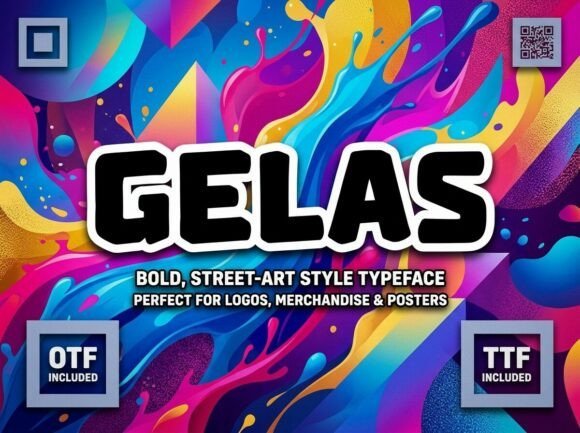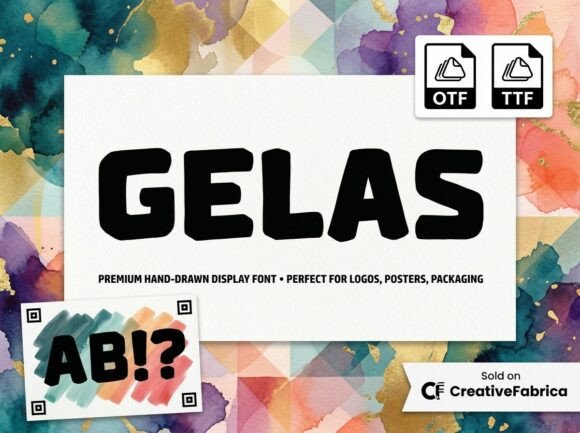
Elevate Your Creative Vision with Gelas Font
Do you remember that moment when a font just clicks, and your entire design comes together? You’re scrolling through font libraries, and suddenly, you stumble upon that one font that screams ‘this is it!’ – the perfect blend of style and sophistication. For designers, finding that elusive font can be a game-changer. Introducing Gelas Font, a decorative display font designed to take center stage in any layout.
With its unique artistic elements and strong character, Gelas Font is perfect for creators who want to stand out from the crowd. From bold headlines to creative branding and packaging, this font delivers a high-end, professional aesthetic without compromising on personality. Whether you’re a seasoned designer or just starting out, Gelas Font is a valuable addition to your toolkit, offering endless possibilities for creative expression.
Gelas Font Key Features
- Unique Characteristics: Gelas Font features a unique, modern design with clean lines and a minimalist aesthetic, making it suitable for a wide range of applications, including logos, headings, and body text.
- Font Weight: Gelas Font comes in multiple weights, including Light, Regular, Bold, and Extra Bold, allowing designers to choose the perfect weight to match their design needs.
Gelas Font Review
At first glance, Gelas Font seems like a promising addition to any designer’s toolkit. ✨ Its elegant, handwritten style is perfect for creating a sense of warmth and approachability in any project.
- Unique and stylish: Gelas Font offers a fresh take on the traditional handwritten font.
- Legibility: The font is surprisingly clear and easy to read, even in smaller sizes.
- Customization options: Gelas Font comes in a range of weights and styles, making it easy to tailor to your design needs.
However, there are some limitations that might deter some designers. ⚠️ The font can feel a bit over-the-top in certain contexts, and the weight of the letters can make it difficult to achieve a sense of balance.
- Lack of versatility: While Gelas Font excels in certain situations, it may not be the best choice for more formal or professional designs.
- Difficulty in pairing: The font’s unique style can make it challenging to pair with other fonts or design elements.
Overall, Gelas Font is a solid choice for designers looking to add some personality to their projects. While it may not be the best fit for every design, it’s definitely worth considering for the right project.
Gelas Font Practical Application Guide
Gelas Font is suitable for:
- Brand identities and logos
- Digital products and web design
- Print materials and business cards